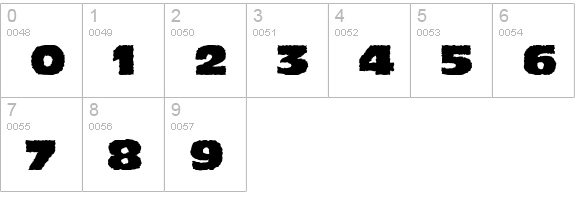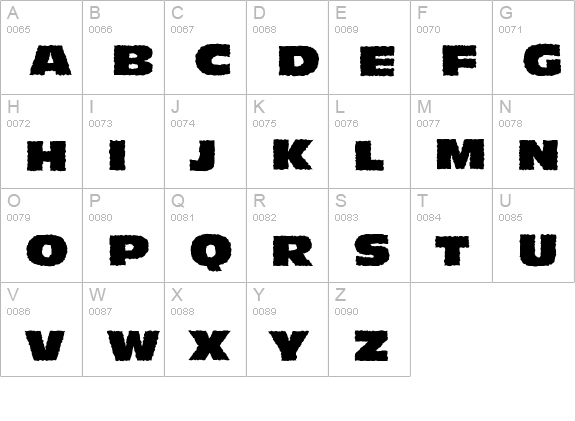
Grunge Olivoy Heavy is a heavy, high-impact variant in the Grunge typeface family \xE2\x80\x94 well suited to high-impact headlines, posters, and display advertising.
The Grunge Olivoy Heavy font is a bold and rugged typeface that exudes a raw and edgy aesthetic. Its distressed and rough texture gives it a unique and rebellious vibe, perfect for adding a touch of grunge to your designs. This font is ideal for creating eye-catching headlines, posters, album covers, and more. The best part? Grunge Olivoy Heavy is available for free download at FontsMarket.com. So go ahead and give your designs that gritty and authentic look with this striking font. Let your creativity run wild with Grunge Olivoy Heavy!